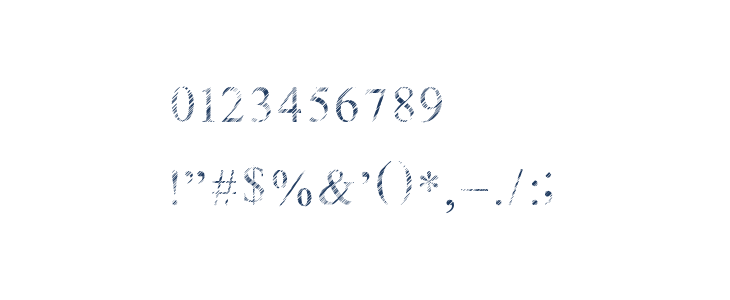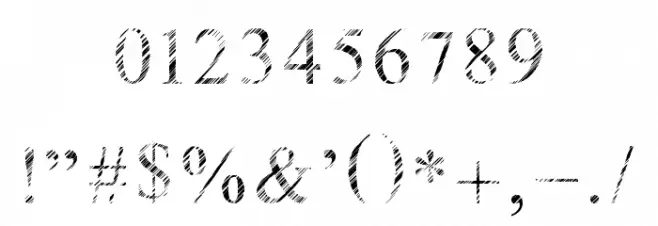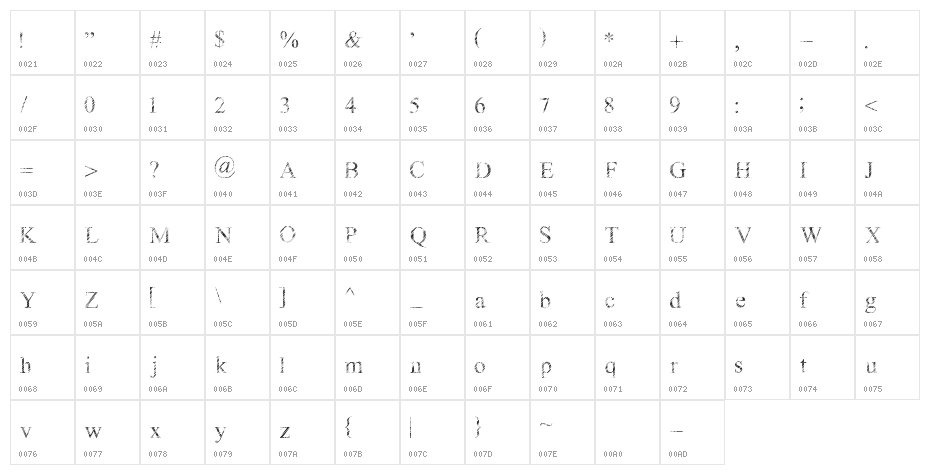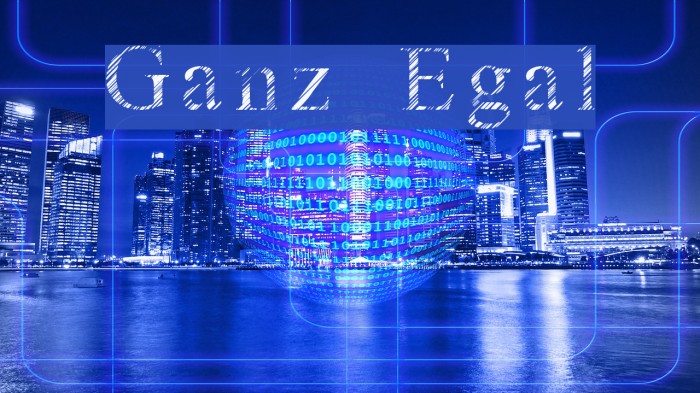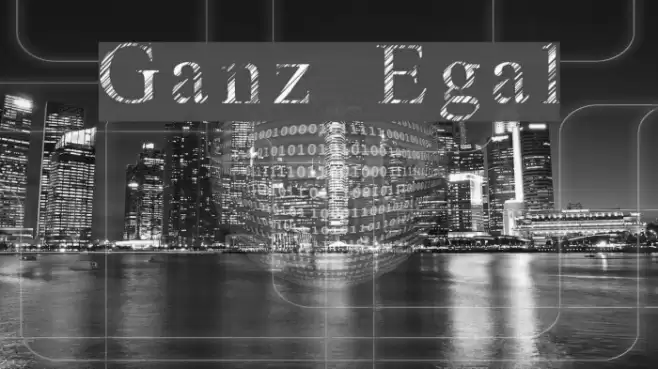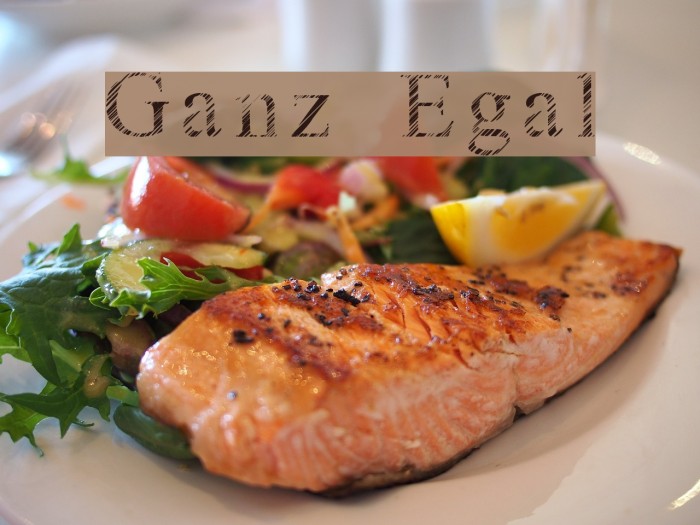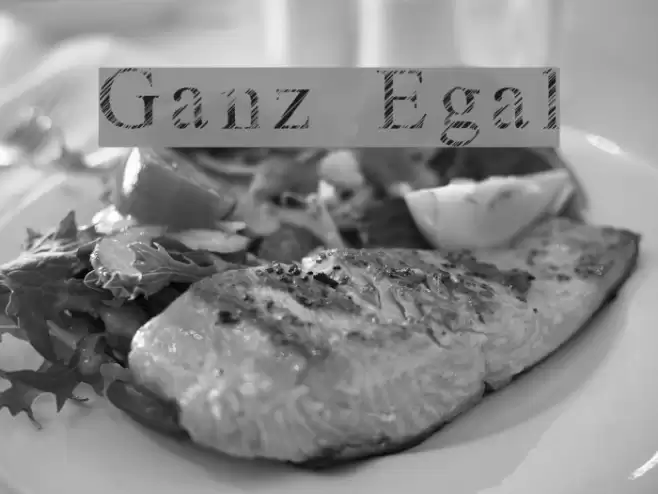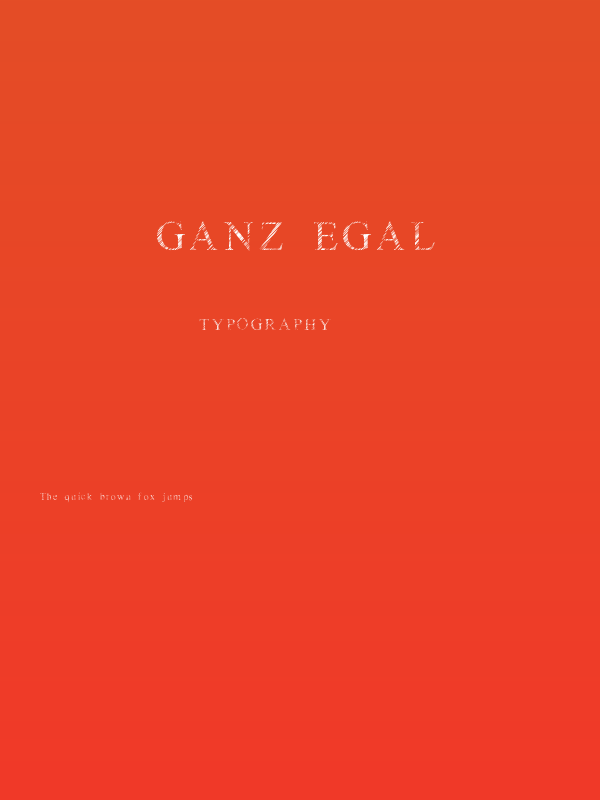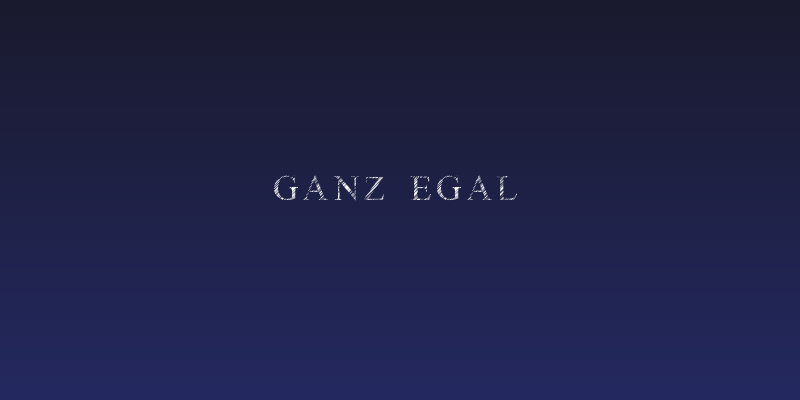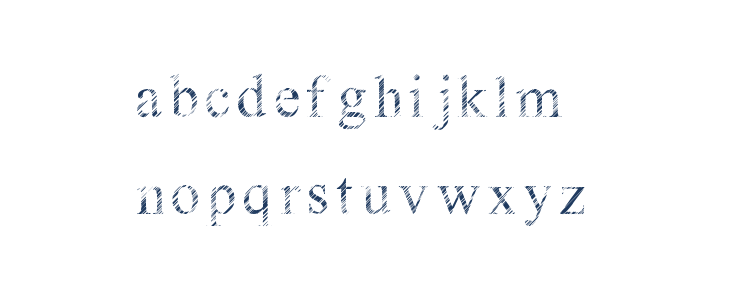
Ganz Egal Font
Ganz Egal Description
This font features a distinctive textured appearance with diagonal lines running through each character, giving it a unique, hand-drawn look. The serif style adds a classic touch, while the textured effect provides a modern twist. The uppercase and lowercase letters maintain a consistent style, with slightly elongated serifs that enhance readability. Numbers and special characters are designed with the same textured pattern, ensuring uniformity across all glyphs. This font's artistic flair makes it stand out, ideal for creative projects that require a blend of tradition and innovation.
| Proposed Projects | Ideal for branding, packaging, posters, and artistic projects that require a unique and creative touch. |